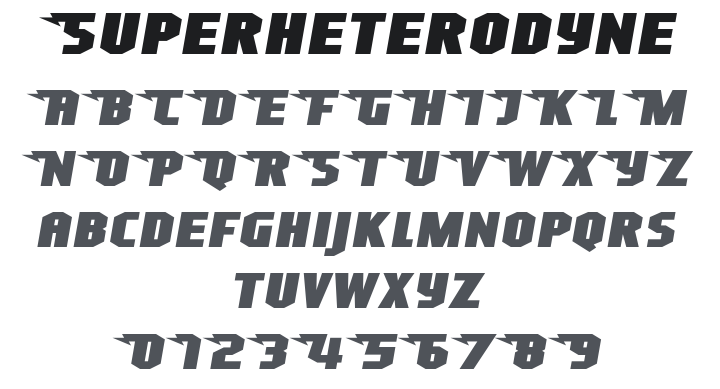
Superheterodyne Font
About Superheterodyne
Superheterodyne is a bold, slanted octagonal industrial display typeface with chamfered corners and dramatic lightning bolt swashes adorning select letterforms — giving it a charged, high-voltage energy that feels like it belongs on radio transmitter equipment or a 1940s electronics manual. Its sharp, angular italic stance radiates retro-industrial authority. Perfect for vintage electronics branding, military-themed designs, retro sci-fi posters, and any headline needing electrifying, signal-tower power.